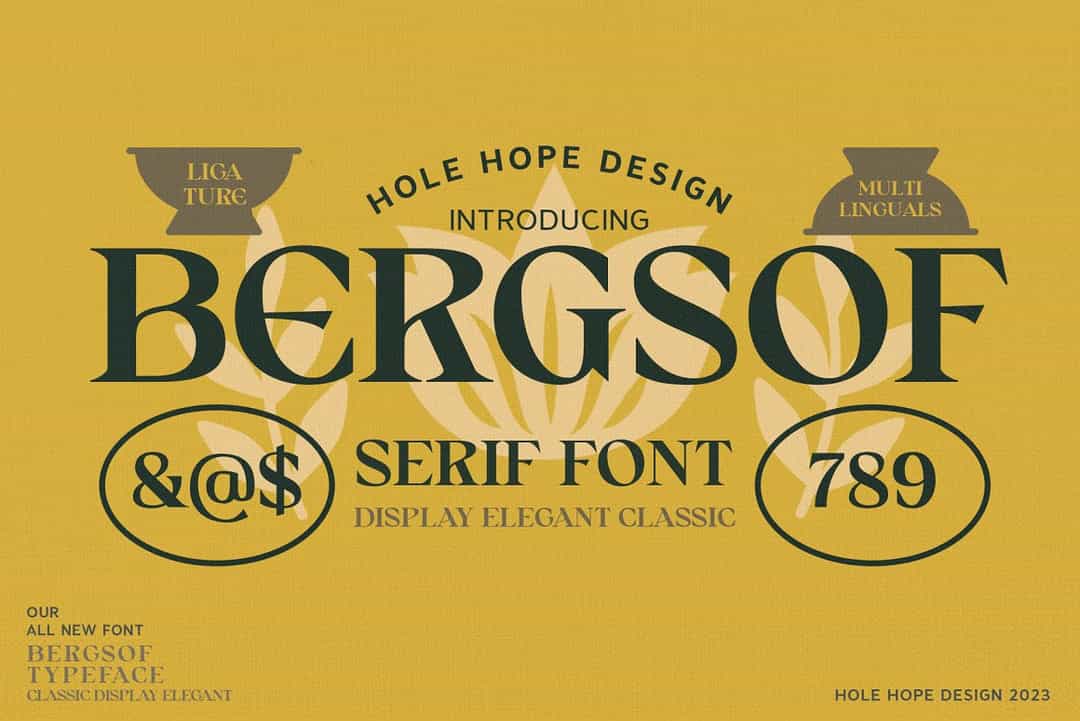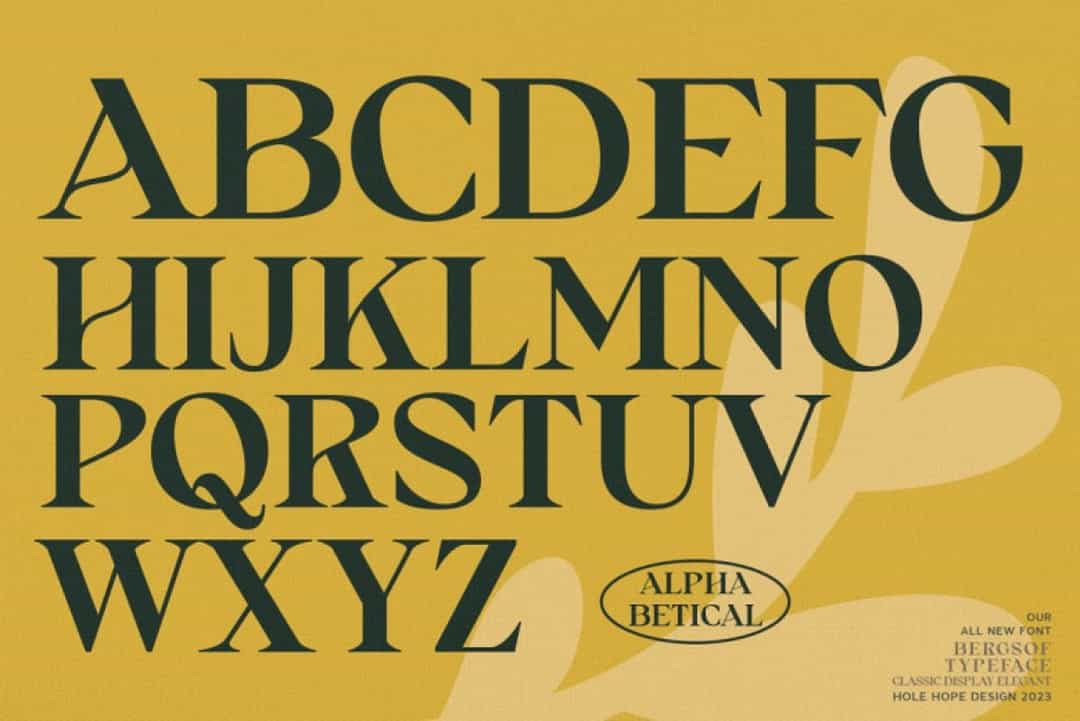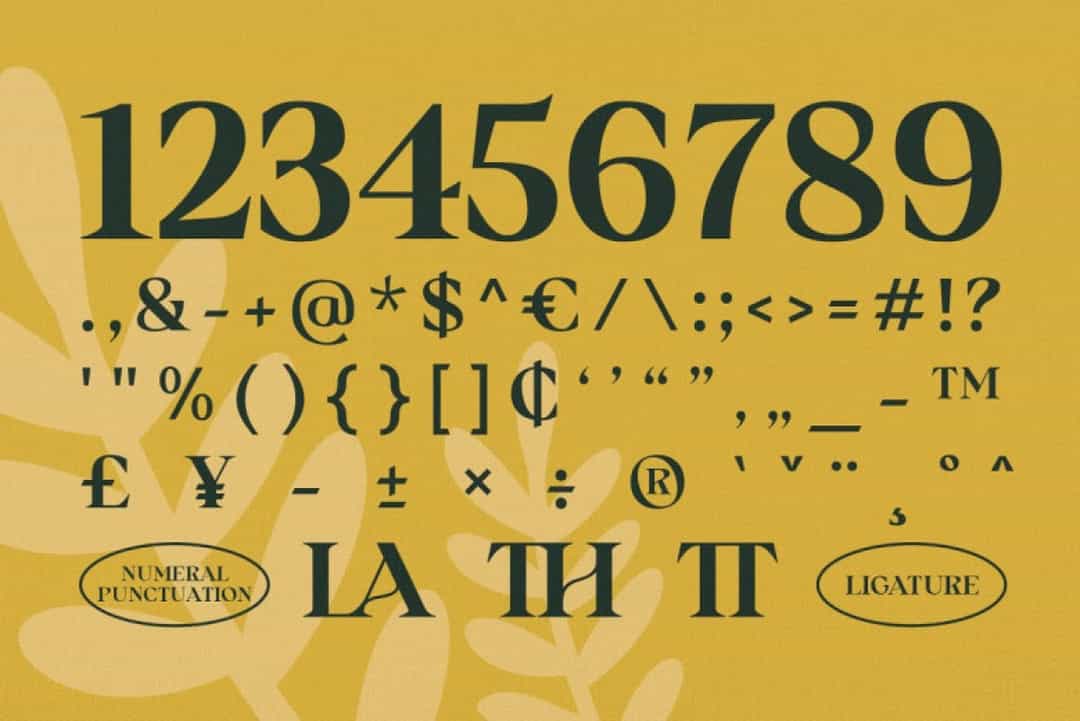
Bergsofis by Hole Hope Design is an impressive show serif font designed with a vintage aesthetic, perfect for headlines, branding and packaging applications. The font expertly blends serif sophistication with classic beauty making this font perfect for graphic designs such as logotypes and merchandise along with printed stickers or any other branding requirements.